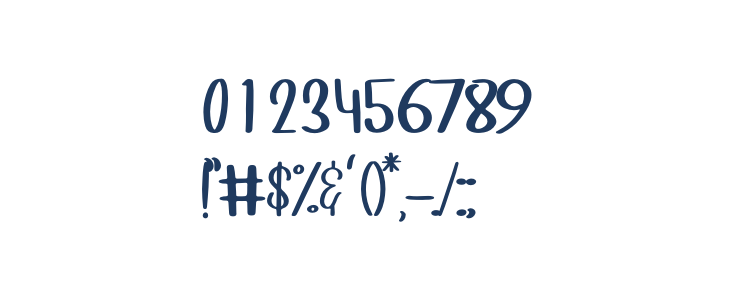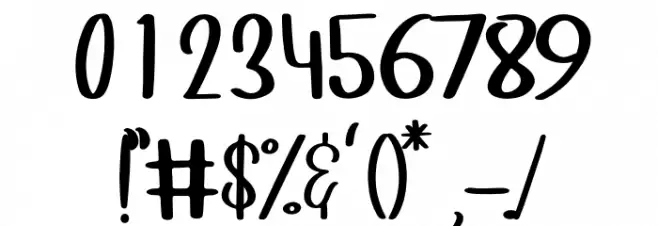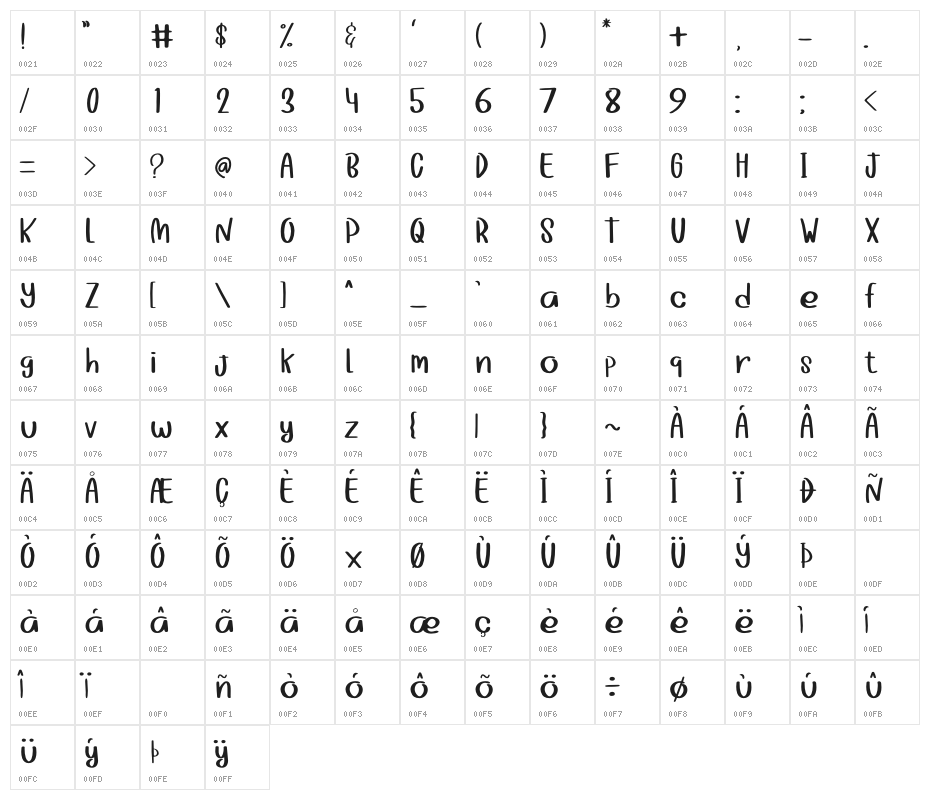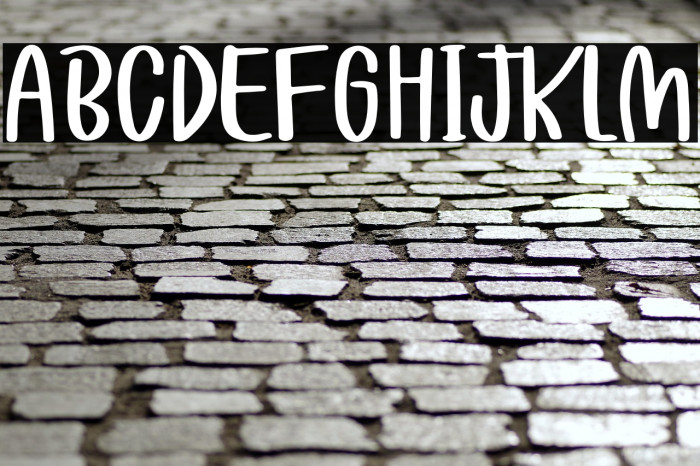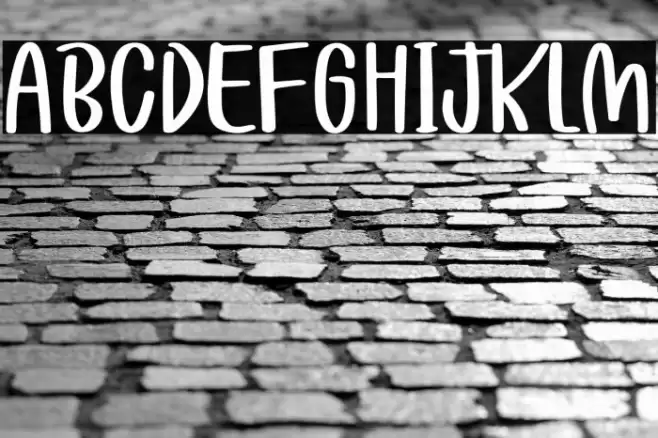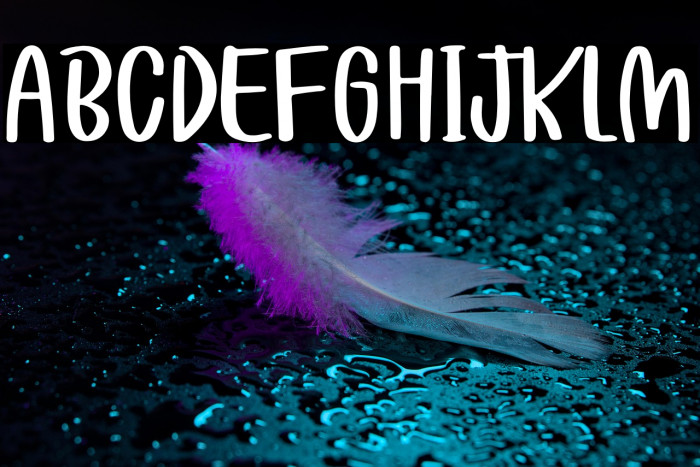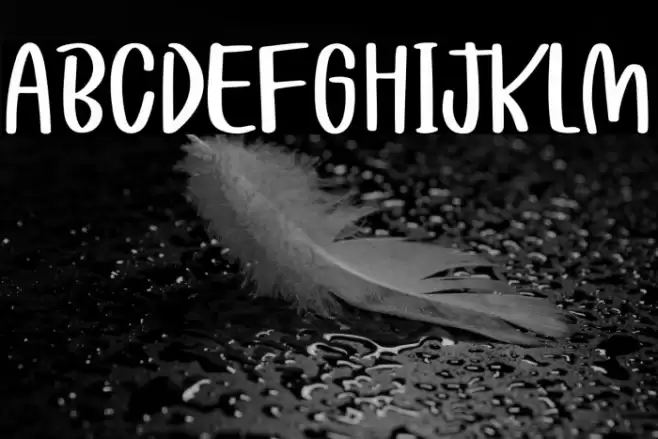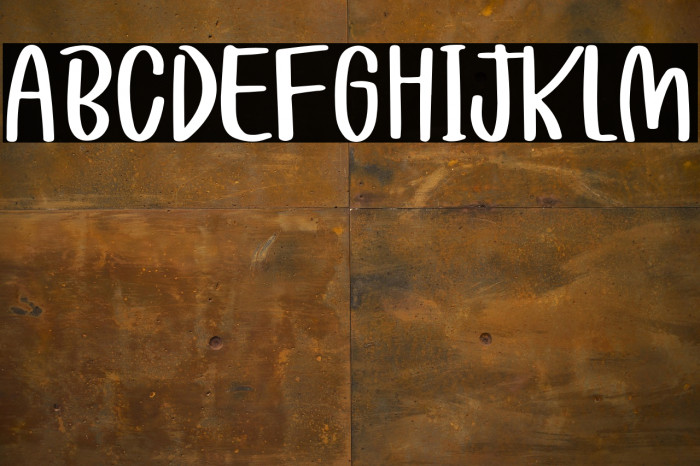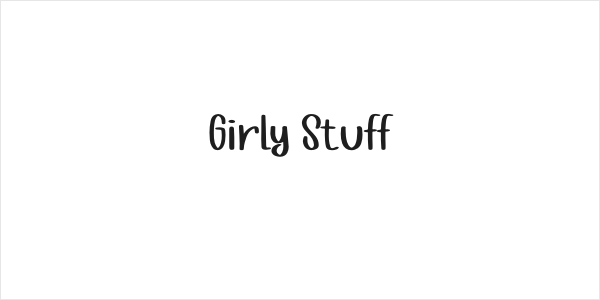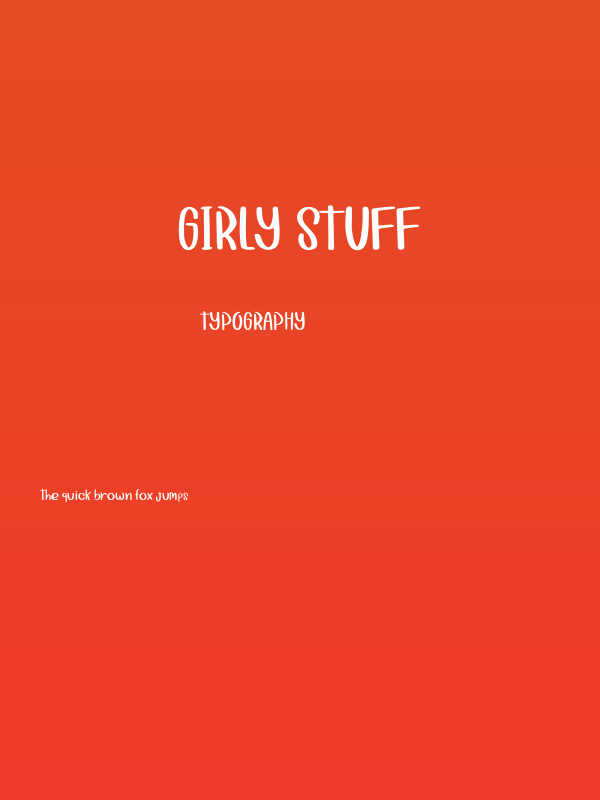
Girly Stuff Font
This playful and whimsical font features a handwritten style with a casual and friendly appearance. The letters are slightly rounded with a consistent stroke width, giving it a smooth and approachable look. The uppercase and lowercase letters maintain a uniform height, while the numbers and special characters are designed to complement the overall style. The font exudes a sense of fun and creativity, making it ideal for projects that require a personal touch. Its informal nature makes it suitable for invitations, greeting cards, and playful branding.
| Proposed Projects | Ideal for invitations, greeting cards, playful branding, and creative projects. |